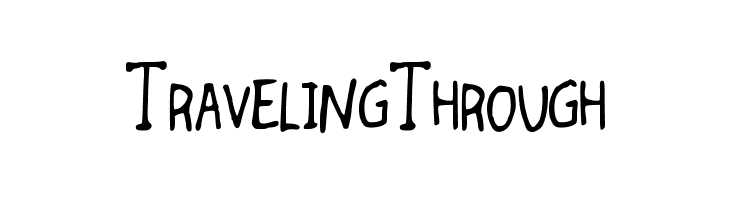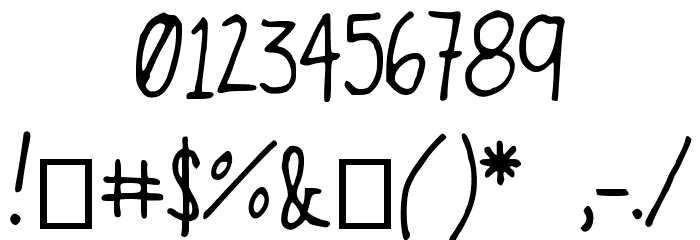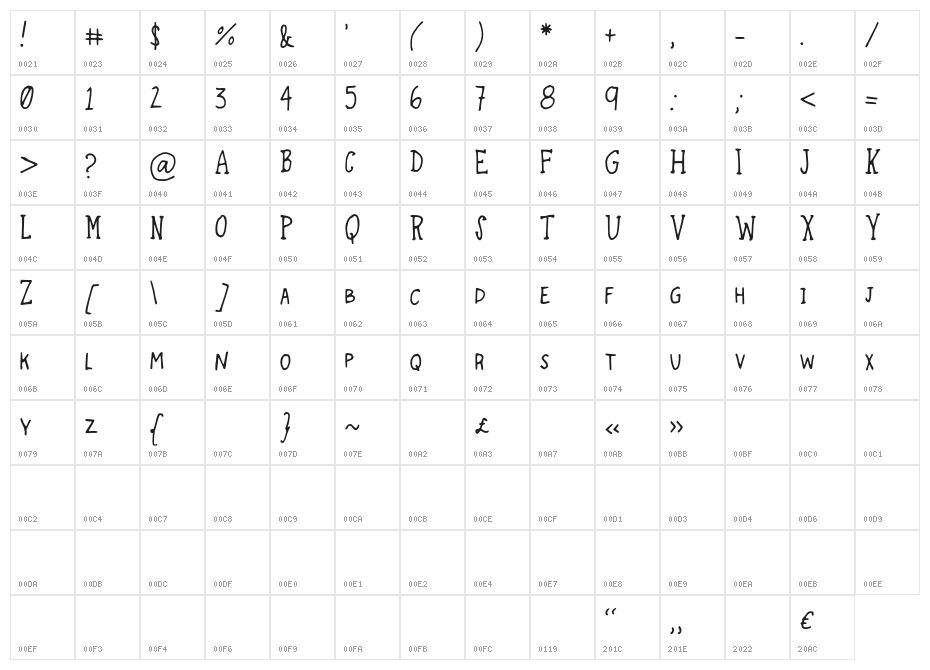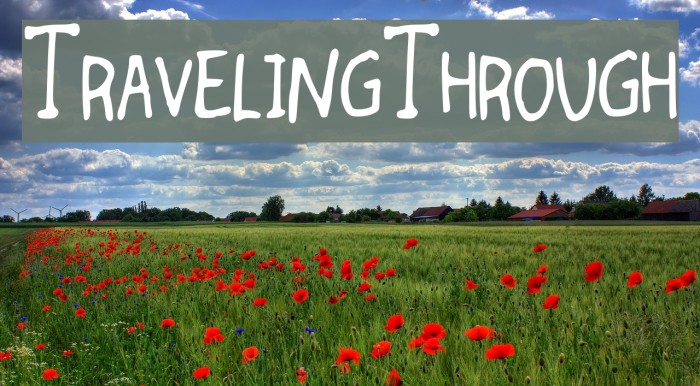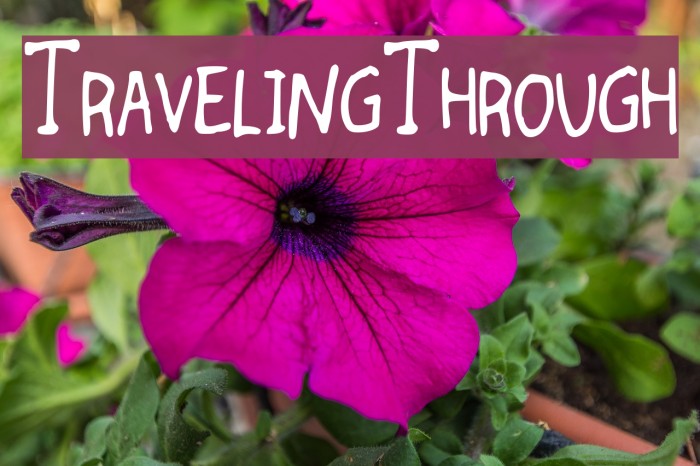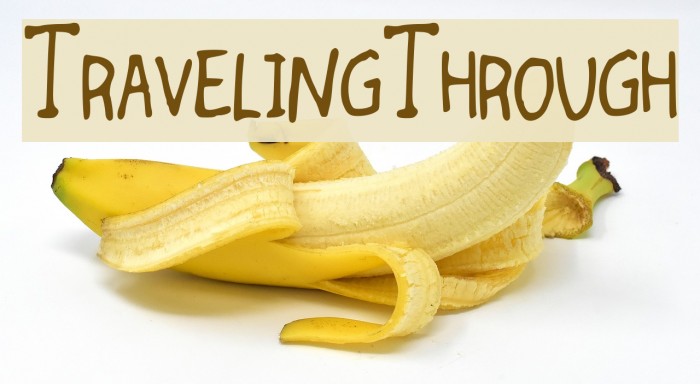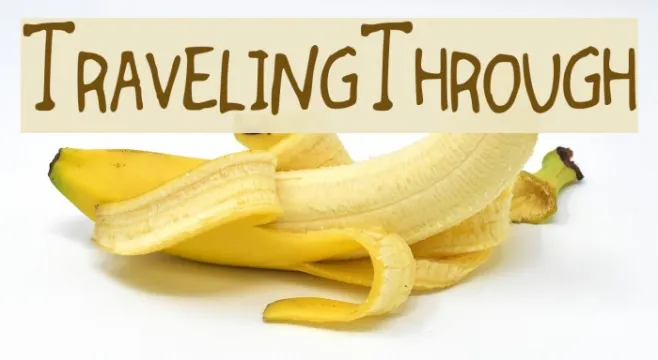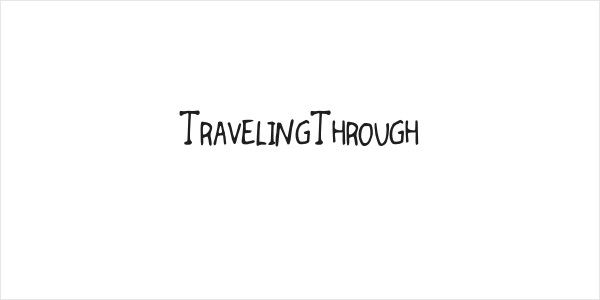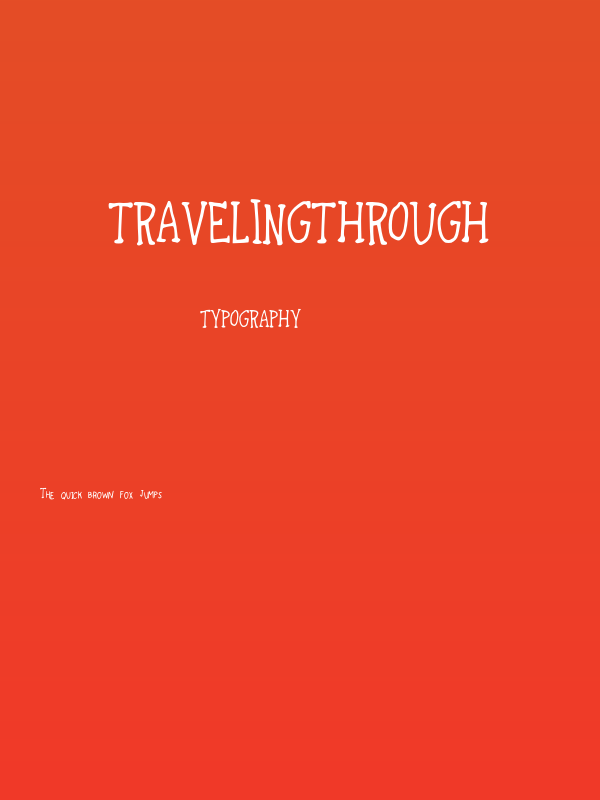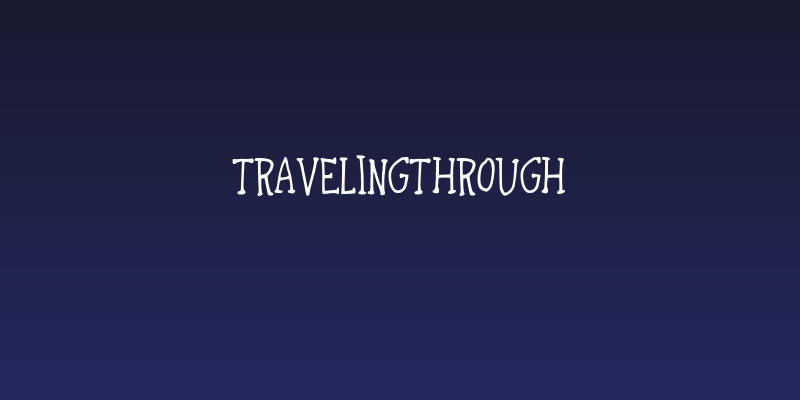
TravelingThrough Font
TravelingThrough Description
This font features a playful and informal style with a hand-drawn appearance. The characters are slightly irregular, giving them a whimsical and casual feel. The uppercase and lowercase letters maintain a consistent style, with rounded edges and a slight tilt, adding to the font's approachable nature. The numerals and special characters follow the same design principles, ensuring uniformity across all glyphs. This font is well-suited for projects that require a friendly and relaxed tone, such as children's books, casual invitations, or creative branding.
| Proposed Projects | Ideal for children's books, casual invitations, creative branding, and playful designs. |